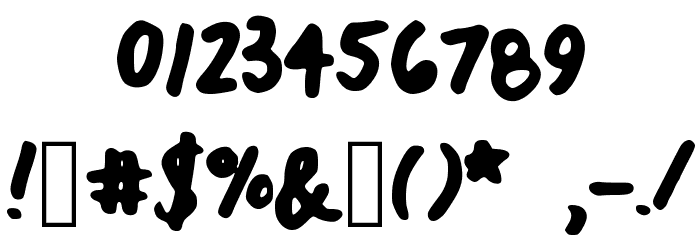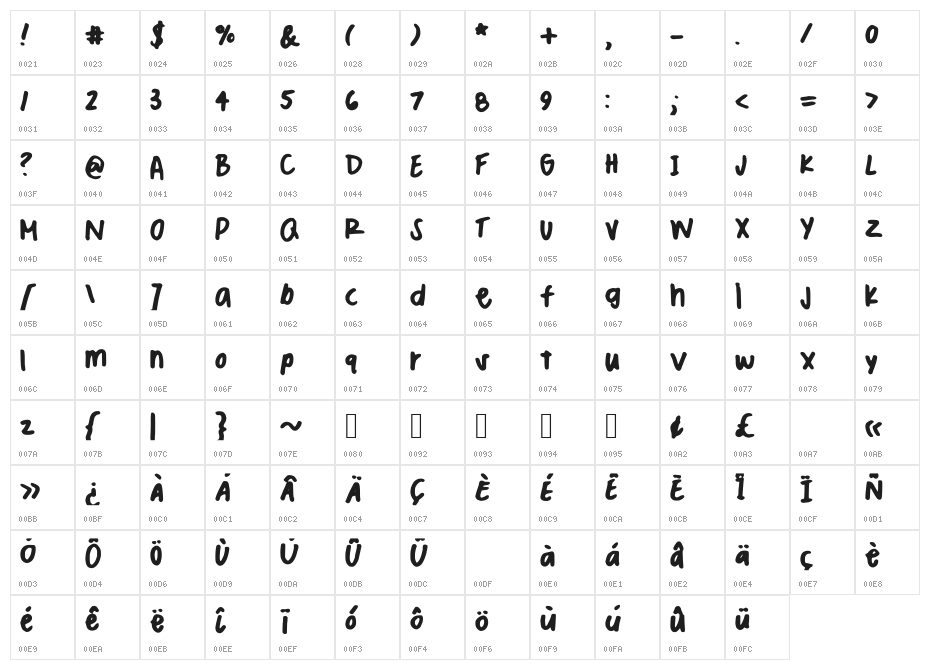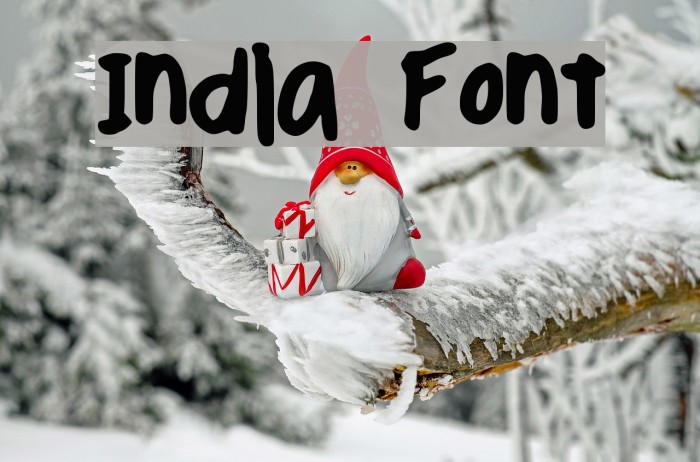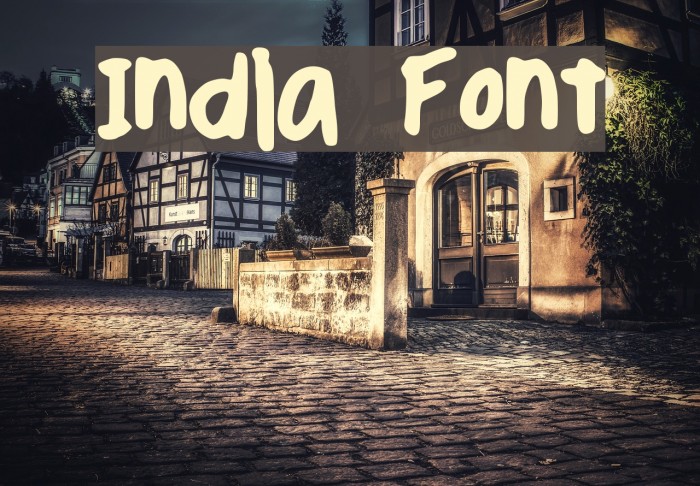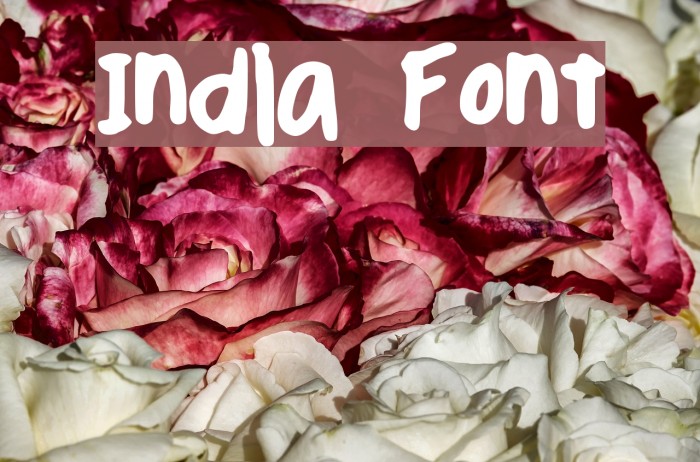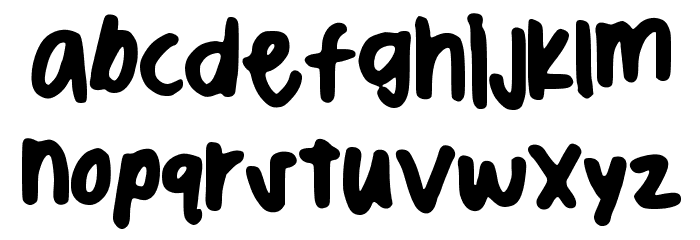
India Font
India Description
This font features a playful and bold handwritten style, characterized by its thick strokes and casual appearance. The letters have a slightly irregular form, giving them a dynamic and lively feel. The uppercase and lowercase letters maintain a consistent weight, contributing to a cohesive look. The numerals and special characters are designed to match the overall style, ensuring versatility across various uses. The font's informal nature makes it suitable for creative and fun projects, where a touch of personality is desired.
| Proposed Projects | Ideal for children's books, greeting cards, posters, and playful branding. |